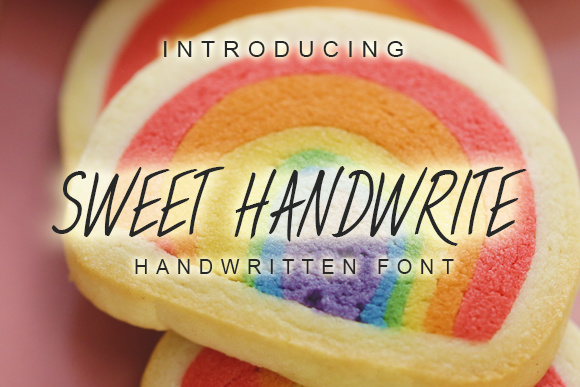
HomeScript FontsSweet Handwrite Font Script Fonts Sweet Handwrite Font FacebookXPinterestWhatsApp Sweet Handwrite Font Poster 2 About Sweet Handwrite Font The Sweet Handwrite is an awesome handwritten font. It will look superb on flyers, banners, prints and more. DOWNLOAD ON CREATIVE FABRICAThis font is sold and delivered by Creative Fabrica. Font Canyon may earn a commission if you buy through this link. People also explored Be Cool Font Deflecting Font Kawai Animal Font Vintage Font The Monthego Font Leibra Font Amokara Script Font Royal Font Simple Writing Font 319 0 TagsSweet Handwrite Font Previous articleBentonite Script FontNext articleDriving Around Font LEAVE A REPLY Cancel reply Comment: Please enter your comment! Name:* Please enter your name here Email:* You have entered an incorrect email address! Please enter your email address here Website: Save my name, email, and website in this browser for the next time I comment. Personal Use Free Nugo Sans Personal Use Free Read more about this font Fifteenth Century Personal Use Free Read more about this font Ginóra Personal Use Free Read more about this font Calling Personal Use Free Read more about this font BLOG Top 10 Handwritten Fonts That Elevate Your Designs Top 10 Handwritten Fonts That Will Elevate Your Designs Handwritten fonts bring a warm, personal touch to every creative project. Whether you're designing logos, invitations,... Best Fonts for T-Shirt Design – Top 2025 Picks Elegant Wedding Invitation Fonts – Handwritten & Script Fonts Using Fonts in Digital Marketing: Tips to Strengthen Your Brand Identity